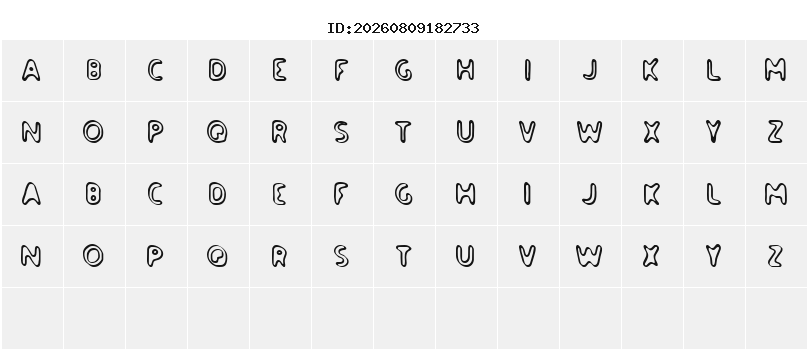
• Font Name: Paradise Road Outline
• Font Style: Outline
• Designer: Frédéric Rich
Paradise Road Outline.ttf is a modern, elegant sans-serif font designed for ultimate readability and visual harmony. Perfect for branding, headlines, web design, and print materials.